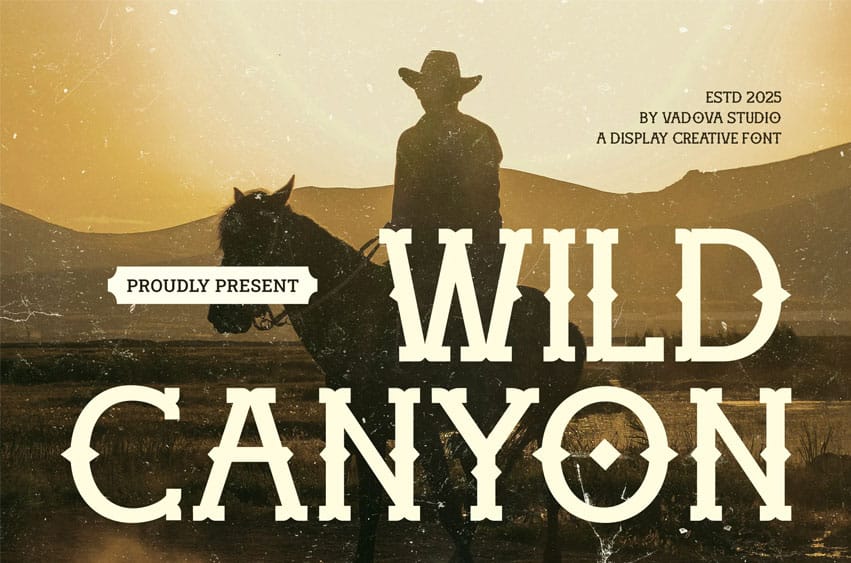
Wild Canyon Font Creative Font is a rugged western-style display font that evokes the spirit of the untamed frontier. With its sharp serifs, bold structure, and iconic letterform cuts, this font captures the essence of vintage Americana, cowboy posters, and outlaw legends. It’s perfect for designs that need a strong and adventurous personality—from “Wanted” posters to movie titles and retro branding. Wild Canyon delivers a powerful visual impact with a nostalgic yet enduring charm.